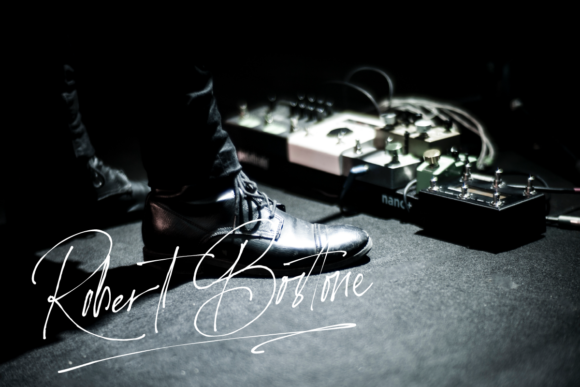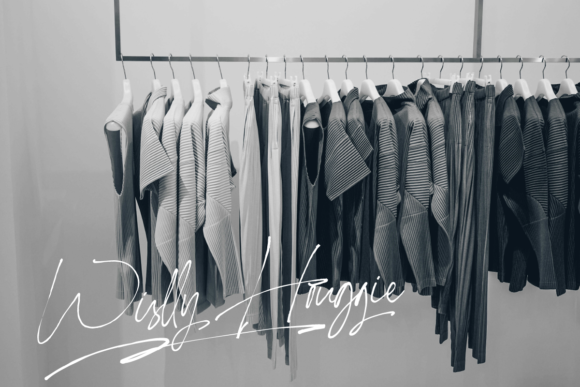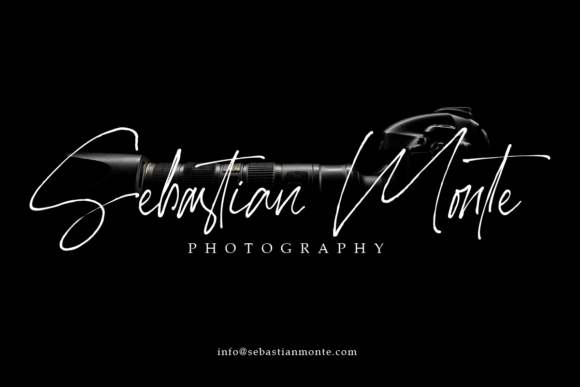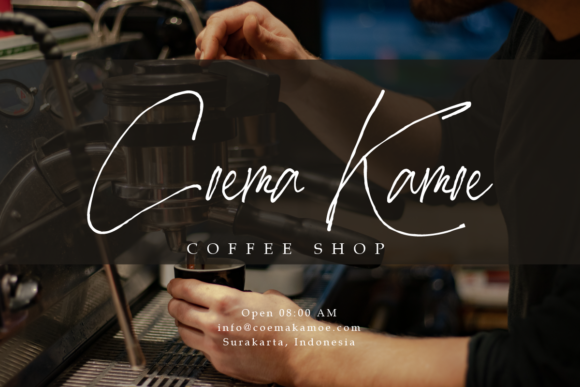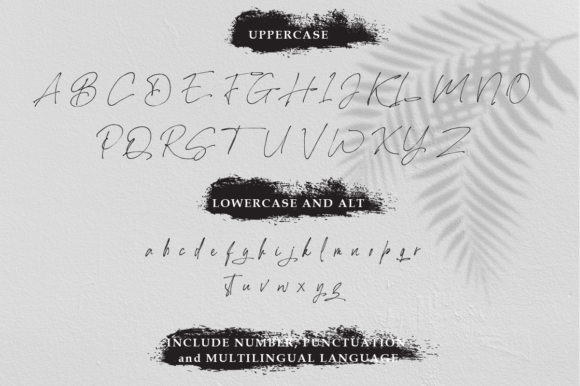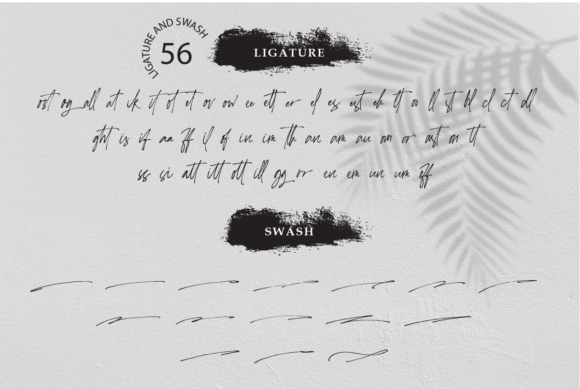
Buggiest Font: Elevate Your Design with a Bold and Modern Script
In the world of typography, a font can make or break a design project. A well-chosen font can elevate your work, convey the right tone, and capture the attention of your audience. If you’re a designer or crafter looking for a bold and modern script to take your projects to the next level, look no further than Buggiest Font. In this article, we’ll explore what makes Buggiest a standout font and how it can enhance your design work.
What is Buggiest Font?
Buggiest Font is a stunning script font that delivers an incredibly bold and modern experience. Its gorgeous design feels both familiar and fresh, making it an excellent choice for a wide range of design projects. Whether you’re working on a logo, branding materials, or marketing collateral, Buggiest Font is sure to make a statement.
Key Features of Buggiest Font
So, what sets Buggiest Font apart from other fonts? Here are some of its key features:
• Bold and Modern Design: Buggiest Font boasts a bold and modern design that’s perfect for making a statement. Its sleek lines and curves create a sophisticated look that’s sure to turn heads.
• Familiar yet Fresh: Despite its modern feel, Buggiest Font has a familiar quality that makes it easy to read and understand. This balance of modernity and familiarity makes it an excellent choice for a wide range of design projects.
• High Versatility: Buggiest Font is incredibly versatile, making it suitable for various design projects, from logos and branding materials to marketing collateral and more.
• Easily Readable: Despite its bold design, Buggiest Font is easily readable, even at smaller sizes. This makes it perfect for use in body text, headlines, and titles.
Benefits of Using Buggiest Font
So, why should you choose Buggiest Font for your design projects? Here are some benefits of using this stunning script font:
• Enhance Your Brand’s Visual Identity: Buggiest Font can help you create a bold and memorable visual identity for your brand. Its modern design and sleek lines make it perfect for logos, branding materials, and marketing collateral.
• Stand Out from the Crowd: With Buggiest Font, you can create designs that stand out from the crowd. Its unique blend of modernity and familiarity makes it an excellent choice for designers looking to create something distinctive.
• Streamline Your Design Process: Buggiest Font is easy to use and works seamlessly with various design software. This means you can focus on the creative aspects of your project, rather than struggling with complicated fonts.
Who Can Benefit from Buggiest Font?
Buggiest Font is an excellent choice for a wide range of designers and crafters, including:
• Graphic Designers: If you’re a graphic designer looking for a bold and modern font to elevate your designs, Buggiest Font is an excellent choice.
• Logotype Designers: Buggiest Font is perfect for logotype designers who want to create memorable and impactful logos.
• Crafters and Makers: If you’re a crafter or maker looking for a unique and versatile font to use in your projects, Buggiest Font is a great option.
In conclusion, Buggiest Font is a stunning script font that delivers an incredibly bold and modern experience. Its gorgeous design feels both familiar and fresh, making it an excellent choice for a wide range of design projects. With its high versatility, readability, and ease of use, Buggiest Font is perfect for designers and crafters looking to elevate their work and create something truly special. So why wait? Try Buggiest Font today and take your design projects to the next level!